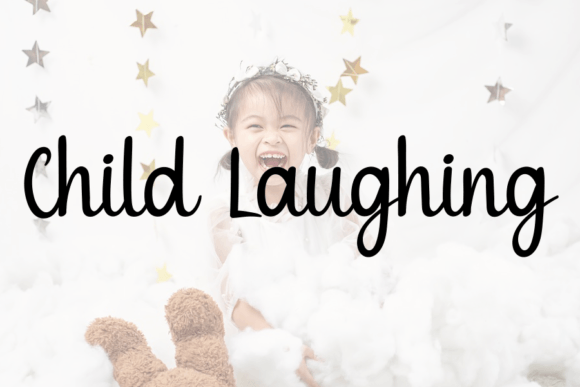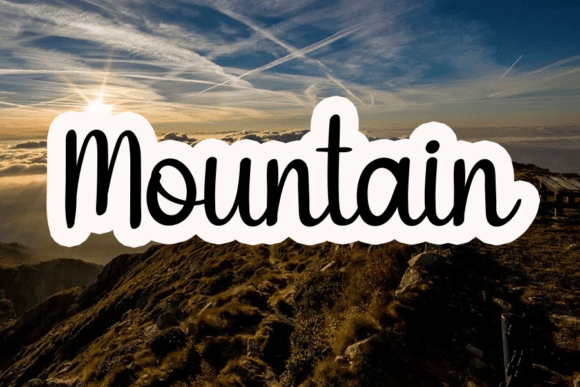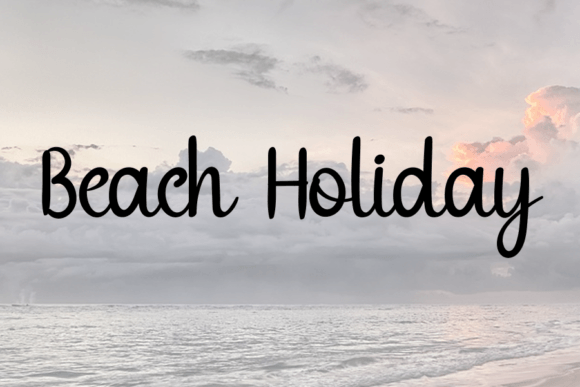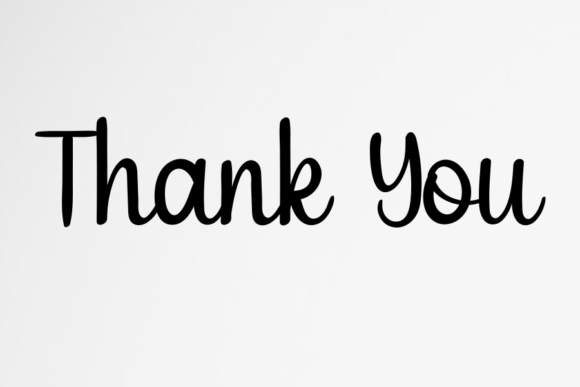
Sunlight Font
About Sunlight Font
sunlight is a sweet and beautiful handwritten font. Featuring characters that dance along the baseline, this font will add a luxury spark to any design project you wish to create!